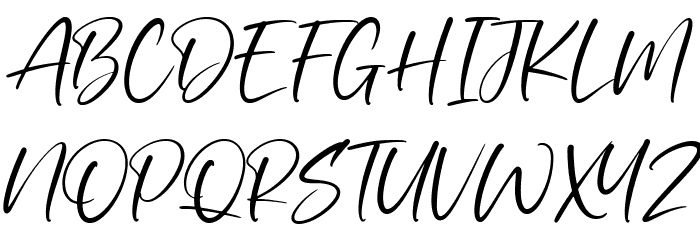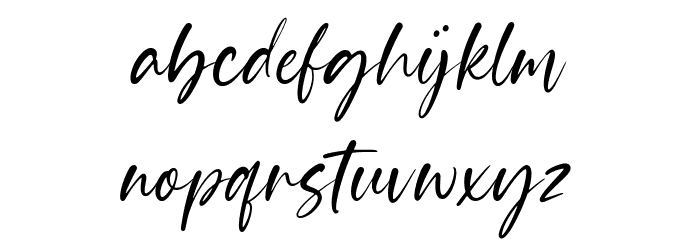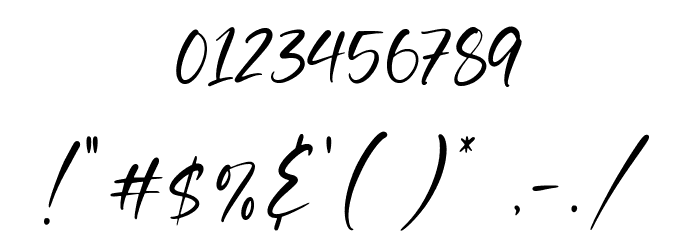
Giantboat Font
This font exudes a lively and dynamic energy with its fluid, cursive style. The characters are elegantly connected, creating a seamless flow that mimics natural handwriting. The strokes vary in thickness, adding a sense of movement and personality. The uppercase letters are bold and prominent, while the lowercase letters maintain a graceful and consistent form. Numbers and special characters are crafted with the same attention to detail, ensuring a cohesive look across all elements. This font is perfect for projects that require a personal touch or a creative flair.
A lively, cursive font with fluid strokes and a natural handwriting style.
- Proposed Projects: Ideal for wedding invitations, personal branding, greeting cards, and creative projects.
- Use Case: Logos, Headlines, Invitations